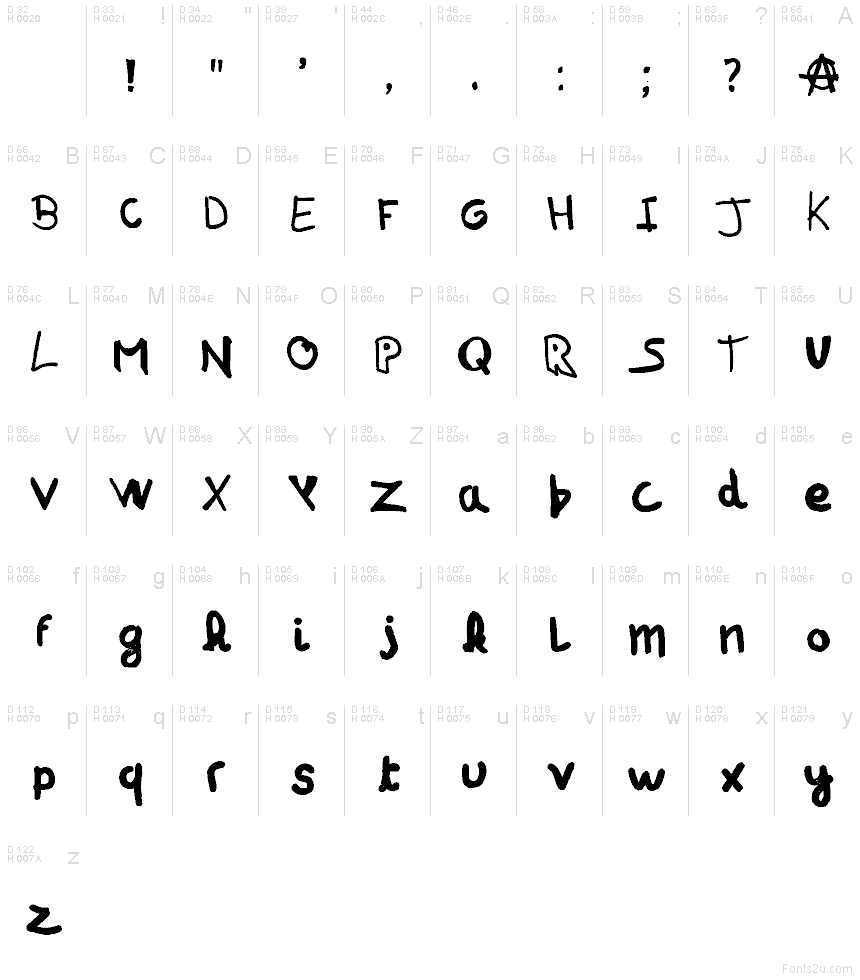
Gauchiasse Regular
Gauchiasse font by Corentin is a free handwritten font that looks like it’s been painted with a fat, inky marker. Its rounded, blobby shapes wobble just enough to feel human and a little mischievous, while the weight stays steady so words read clearly at a glance. The letters sit close and cozy, creating chunky word shapes that feel friendly, bold, and a bit irreverent—like doodles scrawled across a favorite notebook.
Using Gauchiasse, this free font shines on playful posters, kids’ book titles, party invitations, funky stickers, album art, and offbeat branding. The soft curves and dense strokes give headlines a tactile, almost squishy presence on screen and in print. Try pairing Gauchiasse with a clean, light sans serif for body text so its inky personality can handle the loud, expressive moments.